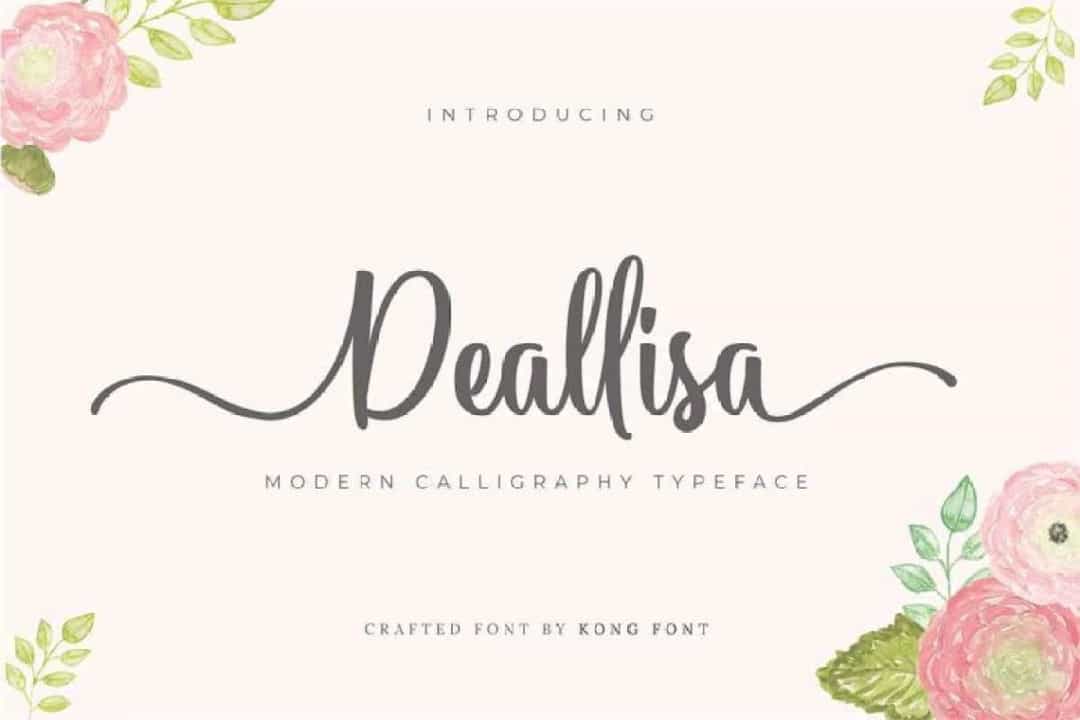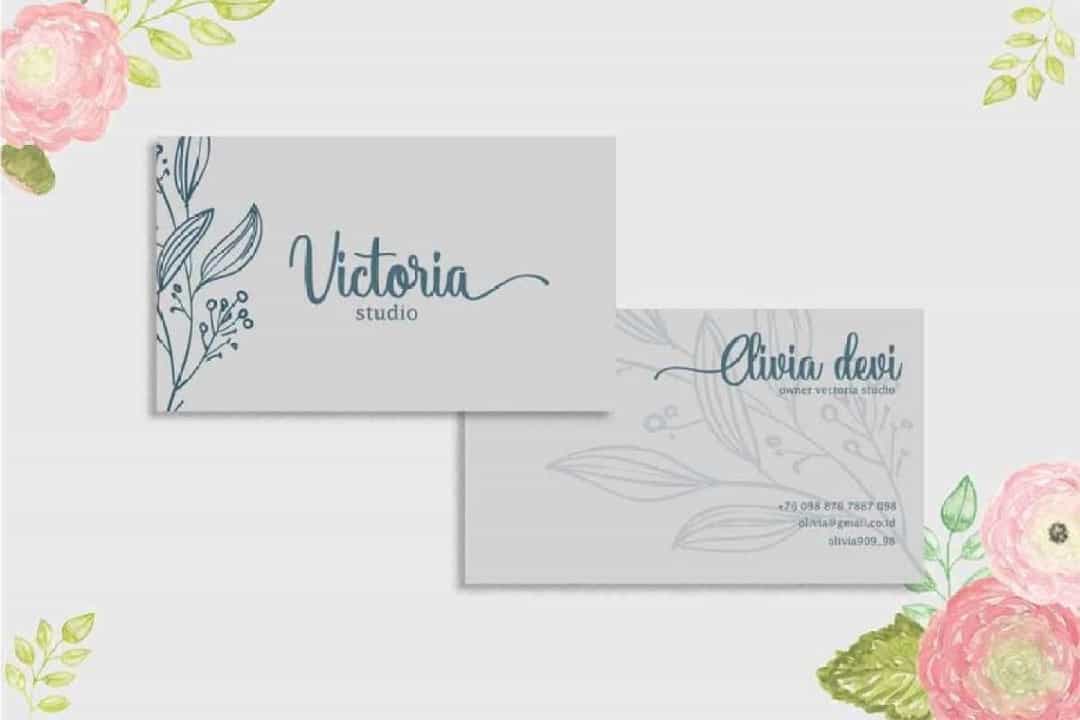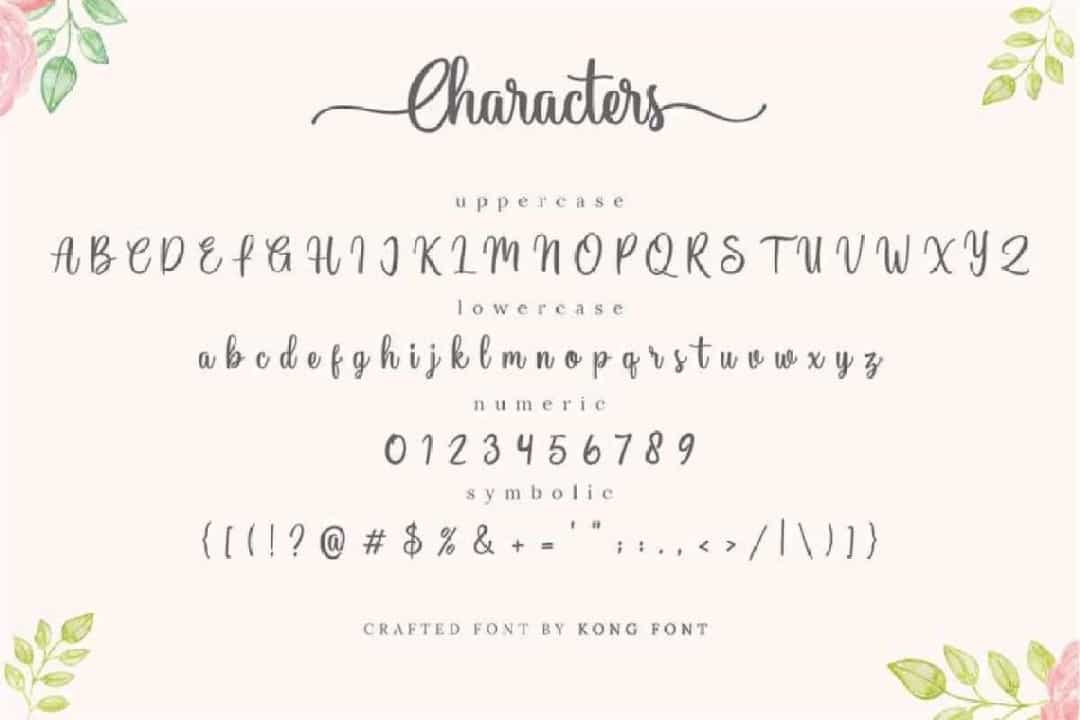
Deallisa is a contemporary calligraphy script typeface, with a sophisticated design. With special attention paid to fast strokes and sharp lines, it will provide a distinctive personalized touch to all your designs